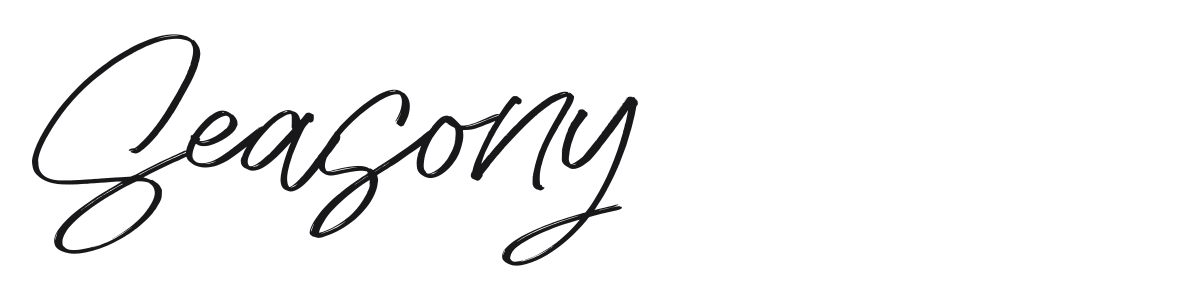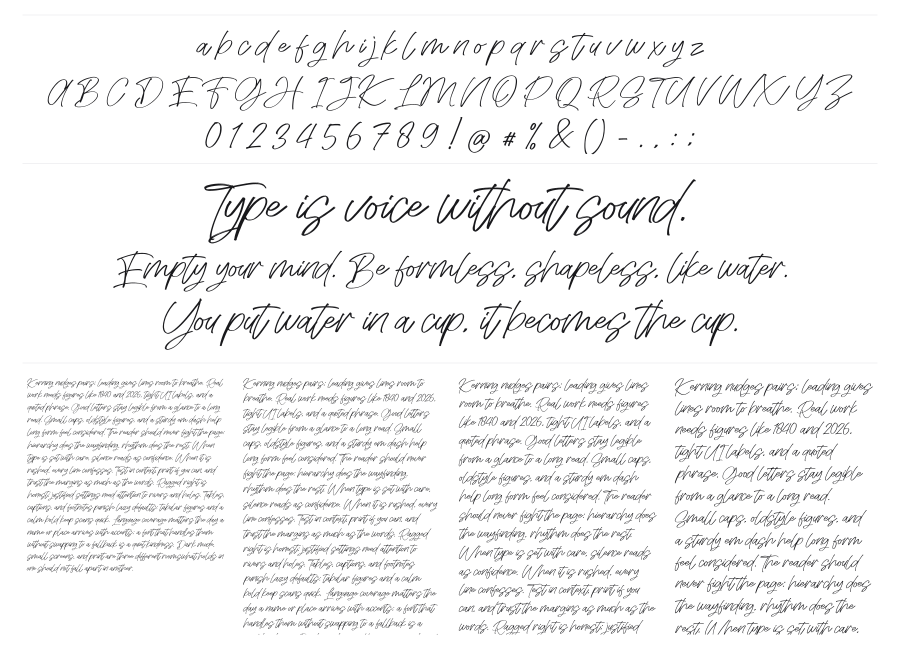
Seasony
Seasony is a breezy casual script with thin, pen-drawn strokes and long sweeping ascenders and descenders that give it an effortlessly relaxed quality. The slightly textured line work keeps it feeling handcrafted rather than digitally sterile. It works well at large sizes for branding, wedding stationery, and lifestyle packaging.